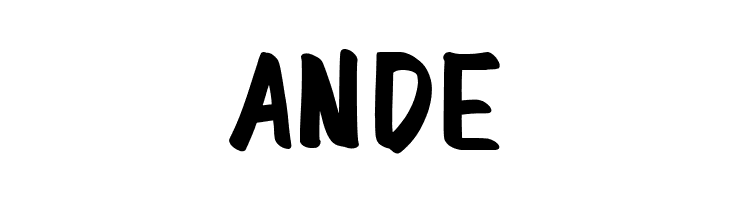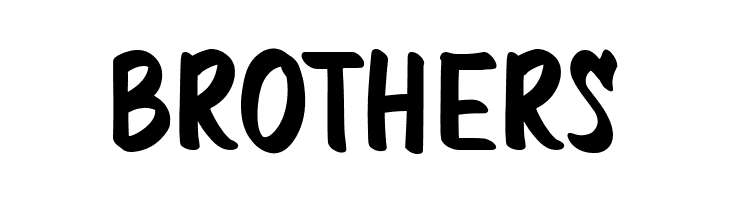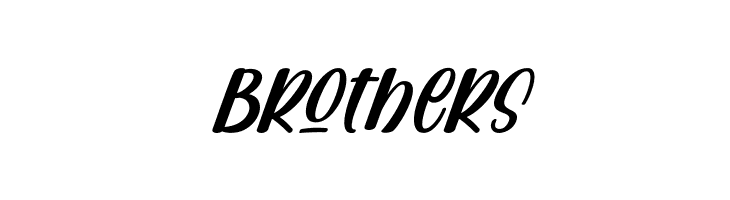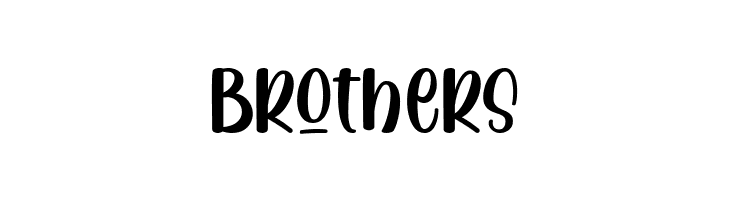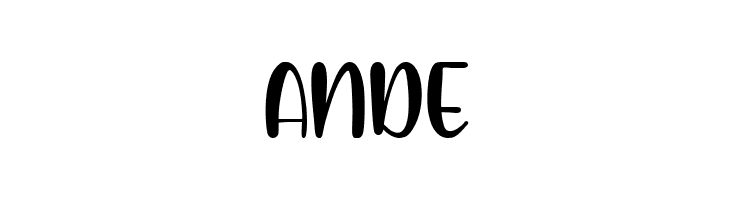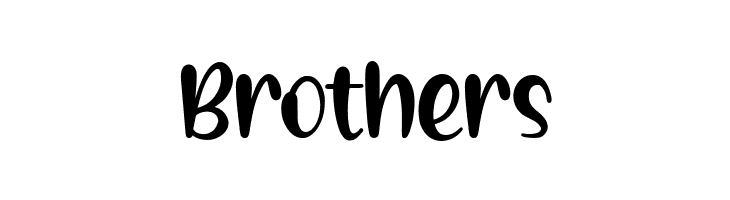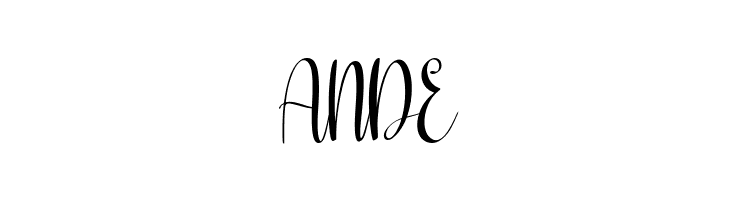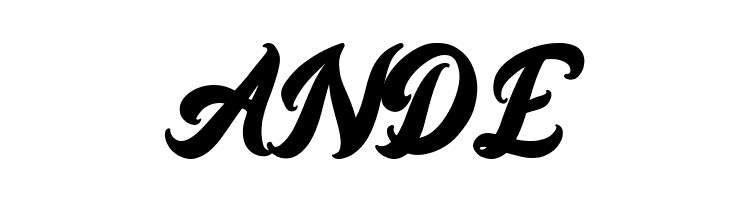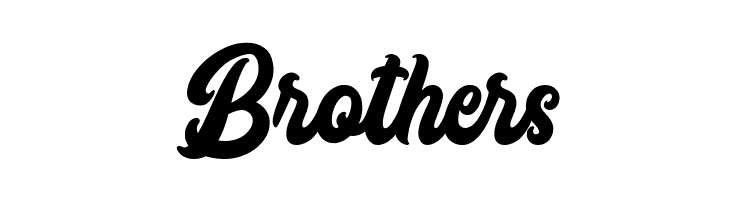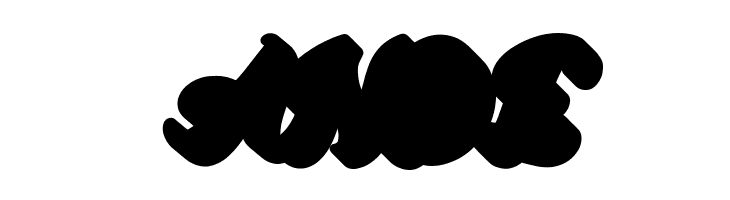
( Vladimir Nikolic - www.coroflot.com/vladimirnikolic )
A bold, 3D-filled italic font with a dynamic and modern style.
( Vladimir Nikolic - www.coroflot.com/vladimirnikolic )
A bold, 3D font with filled centers and strong outlines, perfect for impactful designs.
( Vladimir Nikolic - www.coroflot.com/vladimirnikolic )
A decorative font with bold characters enclosed in ornate, gear-like frames.
( Vladimir Nikolic - www.coroflot.com/vladimirnikolic )
A bold, italic font with a dynamic and modern style.
( Vladimir Nikolic - www.coroflot.com/vladimirnikolic )
A bold, modern sans-serif font with clean lines and geometric shapes.
( Fonts by Jadatype )
A dynamic, expressive handwritten font with fluid, continuous strokes.
( Muhammad Romzul Khoir )
A bold, modern font with geometric influences and clean lines.
( Bangkit Tri Setiadi - creativemarket.com/bangkit.tri.setiadi )
A bold, flowing script font with elegant, cursive letterforms.
A modern, geometric outline font with uniform line thickness and a minimalist design.
A bold, rounded font with a modern and playful style.
A flowing, cursive font with elegant, interconnected letters.
( Andhi Yulianto - creativemarket.com/great19 )
A bold, slanted font with dynamic and energetic letterforms.
( www.woodcutter.es )
A vintage-inspired font with artistic, hand-drawn strokes and playful curves.
A whimsical, hand-drawn style with a vintage flair.
( Fonts by Southype )
An ornate, medieval-style decorative font with intricate flourishes.
( CraftThings - www.craftthings.com )
A vintage-meets-futuristic font with elongated, narrow letterforms and sharp edges.
An elegant, decorative script font with flowing, ornate characters.
( http://www.typhoontype.net/category/fonts/ OFF SITE )
An elegant script font with intricate swashes and flowing design.
( Fonts by FallenGraphic Studio )
( Billy Argel - billyargel.com/ )
A bold, cursive font with decorative loops and high contrast, perfect for artistic projects.
A dynamic, expressive handwritten font with fluid strokes and varying thickness.
A playful, handwritten script font with bold, connected letters.
( Fonts by Masa Aska Sanurumi )
A playful, bold font with rounded edges and a whimsical style.
A dynamic and flowing script font with elegant, interconnected strokes.
( Fonts by da_only_aan )
A bold, edgy font with sharp, angular accents resembling barbed wire.
( Khurasan - Syaf Rizal - creativemarket.com/khurasan?u=khurasan )
A cursive, handwritten font with elegant, flowing strokes.
( www.junkohanhero.com )
A bold, distressed font with a cut-out, grunge style.
A bold, distressed font with a grunge, cut-out style.
An elegant, flowing script font with smooth, cursive lines and graceful curves.
( dharmas - Jamaludin Ahmad - creativemarket.com/dharmas?u=dharmas )
A playful, hand-drawn font with irregular strokes and a whimsical style.
( DM Letter31 )
A decorative cursive font with elegant loops and swirls.